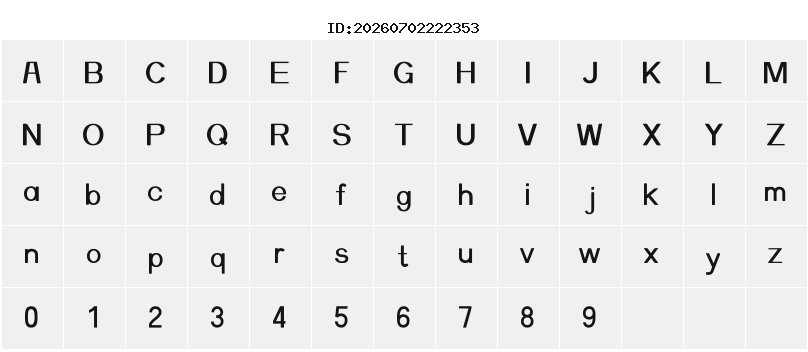
010-上首叮当体 Preview
• Font Name: 010-上首叮当体
• Full Font Name: 010-上首叮当体
About 010-上首叮当体.ttf
010-上首叮当体.ttf is a modern, elegant sans-serif font designed for ultimate readability and visual harmony. Perfect for branding, headlines, web design, and print materials.